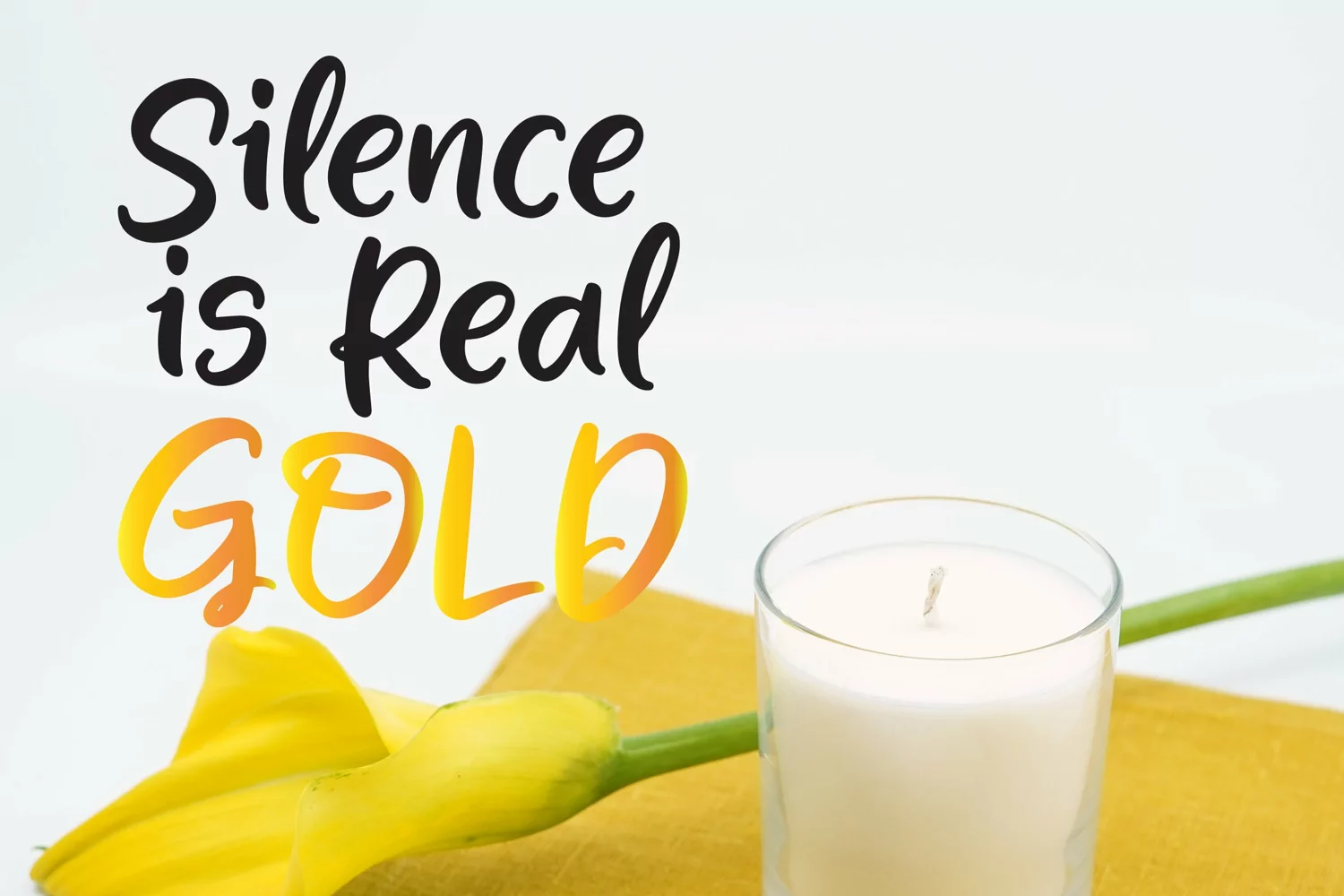
Kickback - A Handlettering Font that contain lowercase, uppercase, symbol, and also support multi language. There’s a lot ligatures in this font. This Font also comes with ligatures, alternates and many more. this font suitable for fashion, branding, catalog and other design what you want.